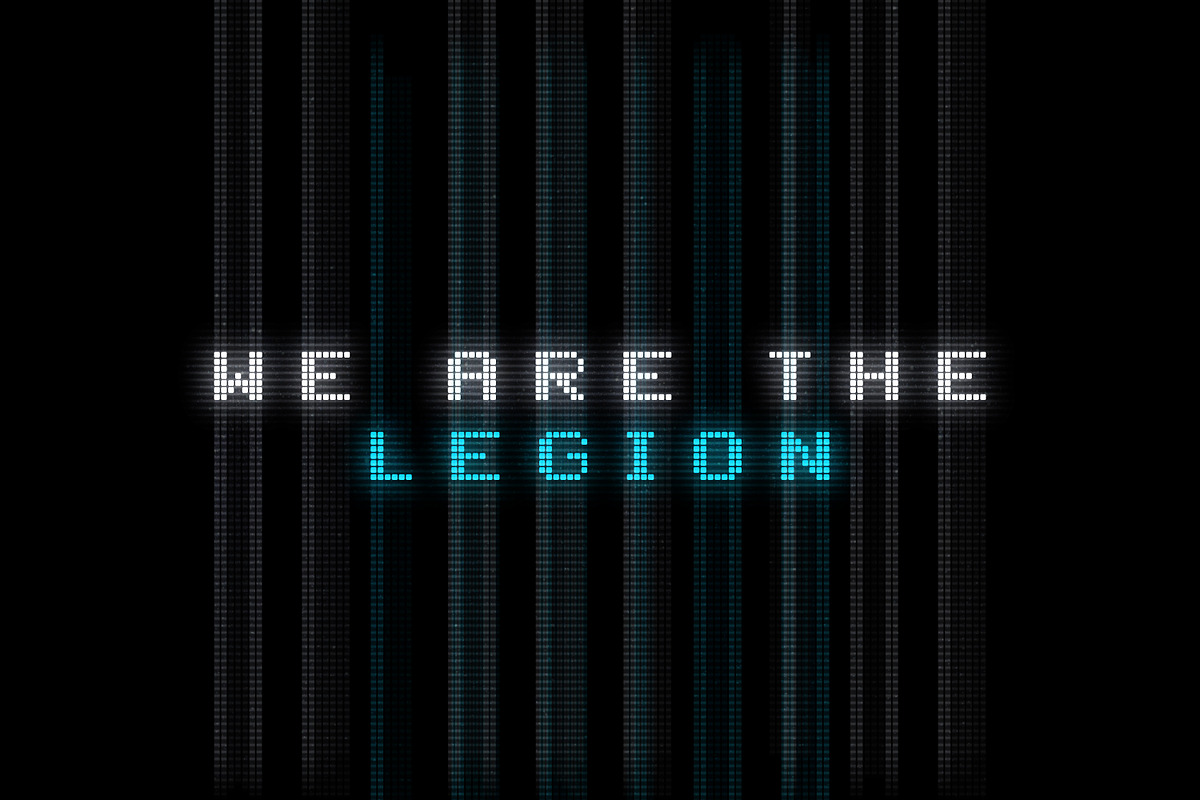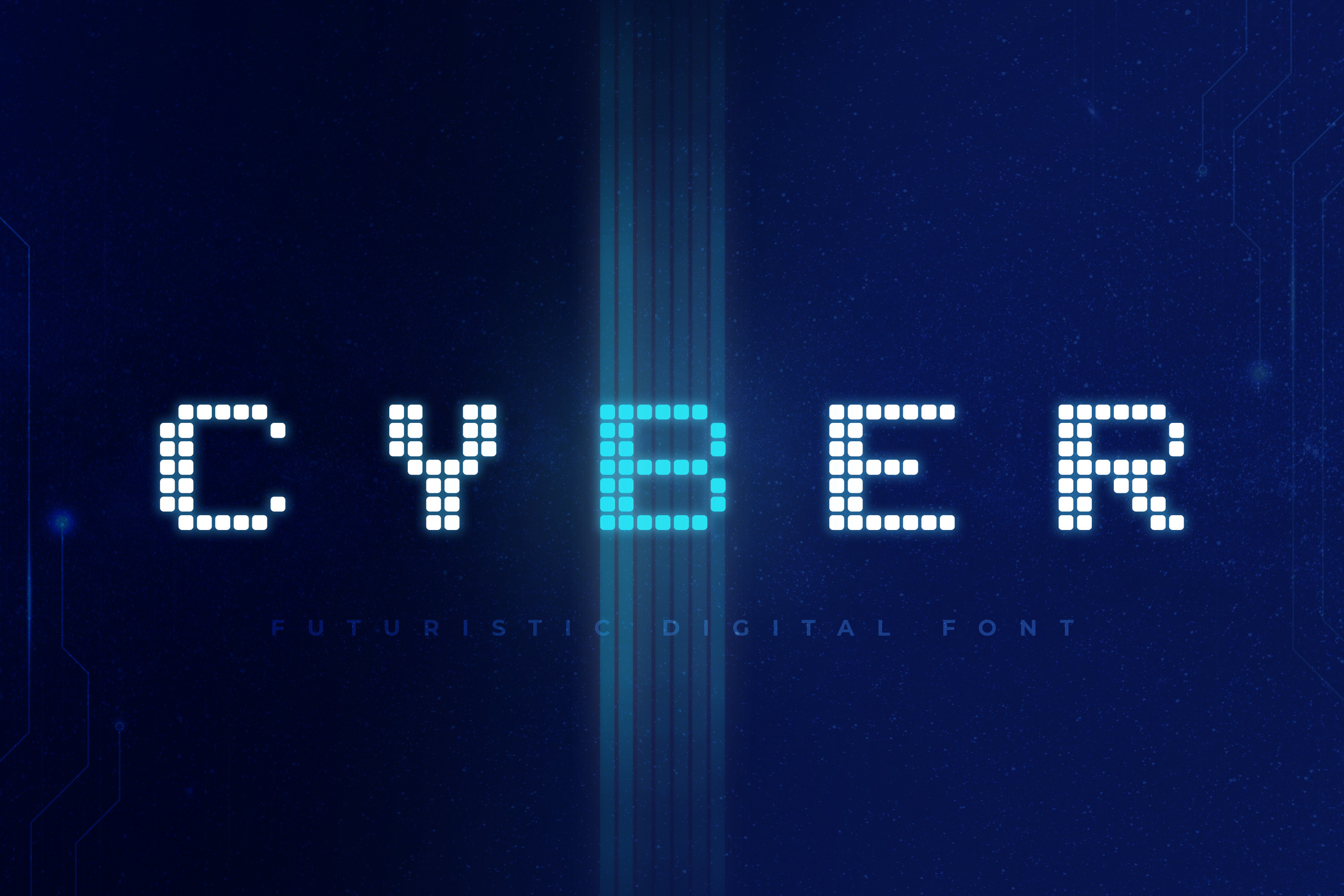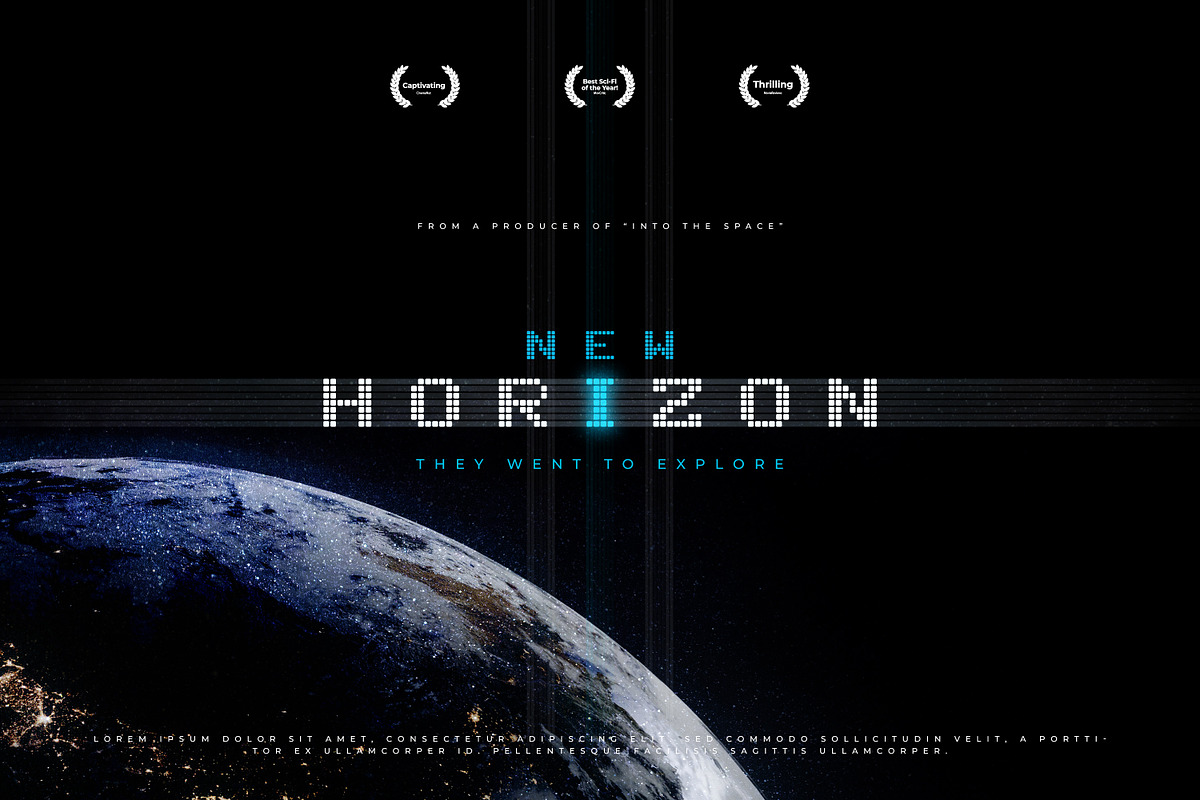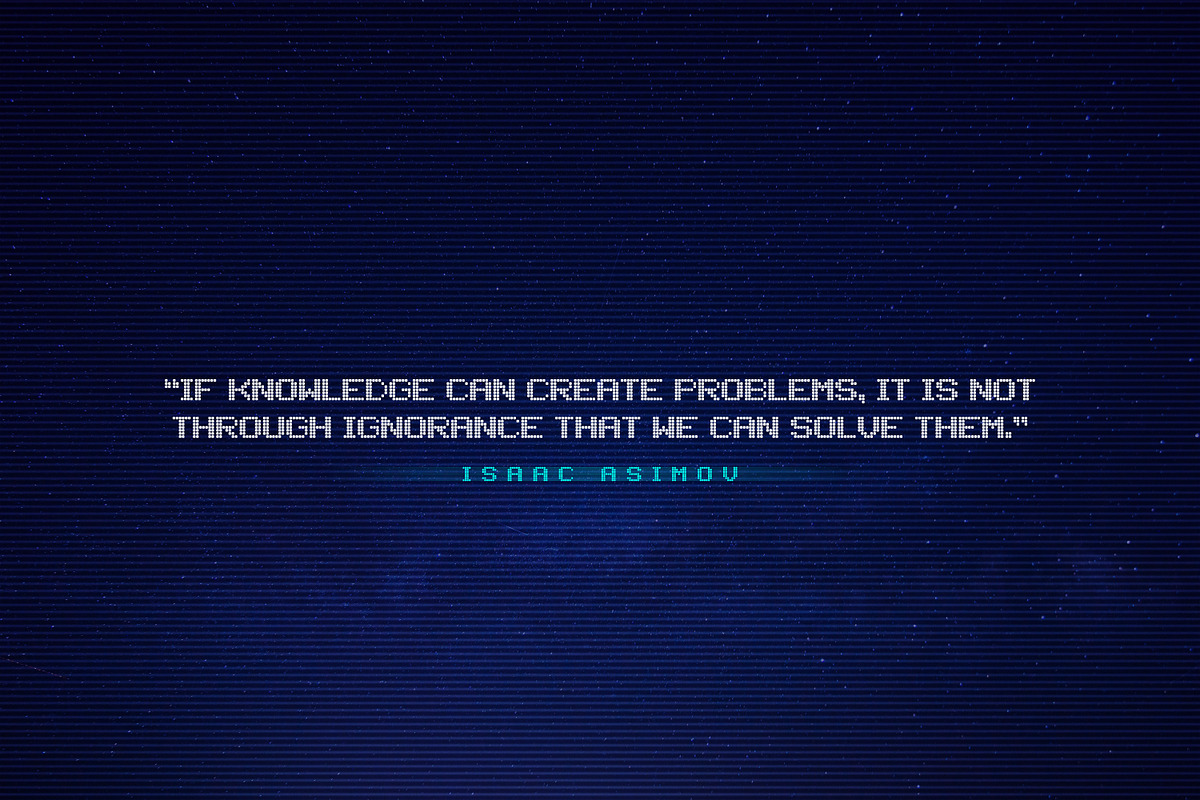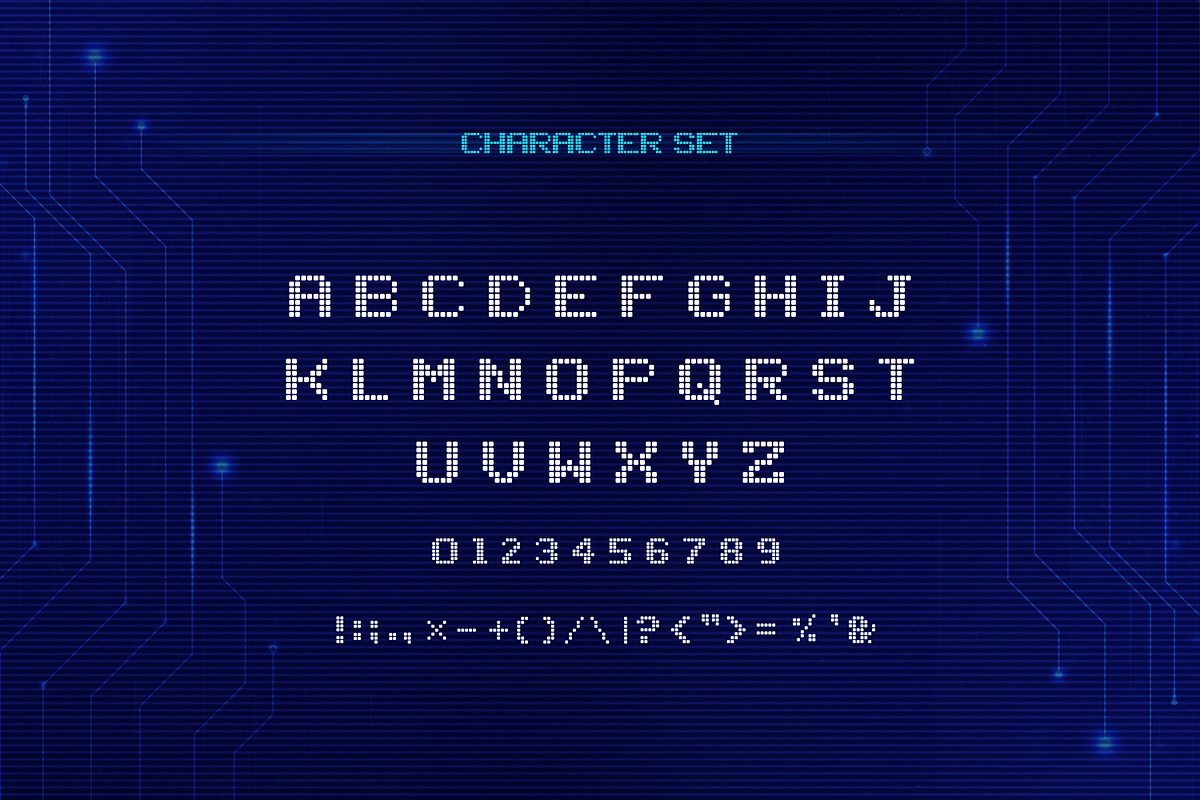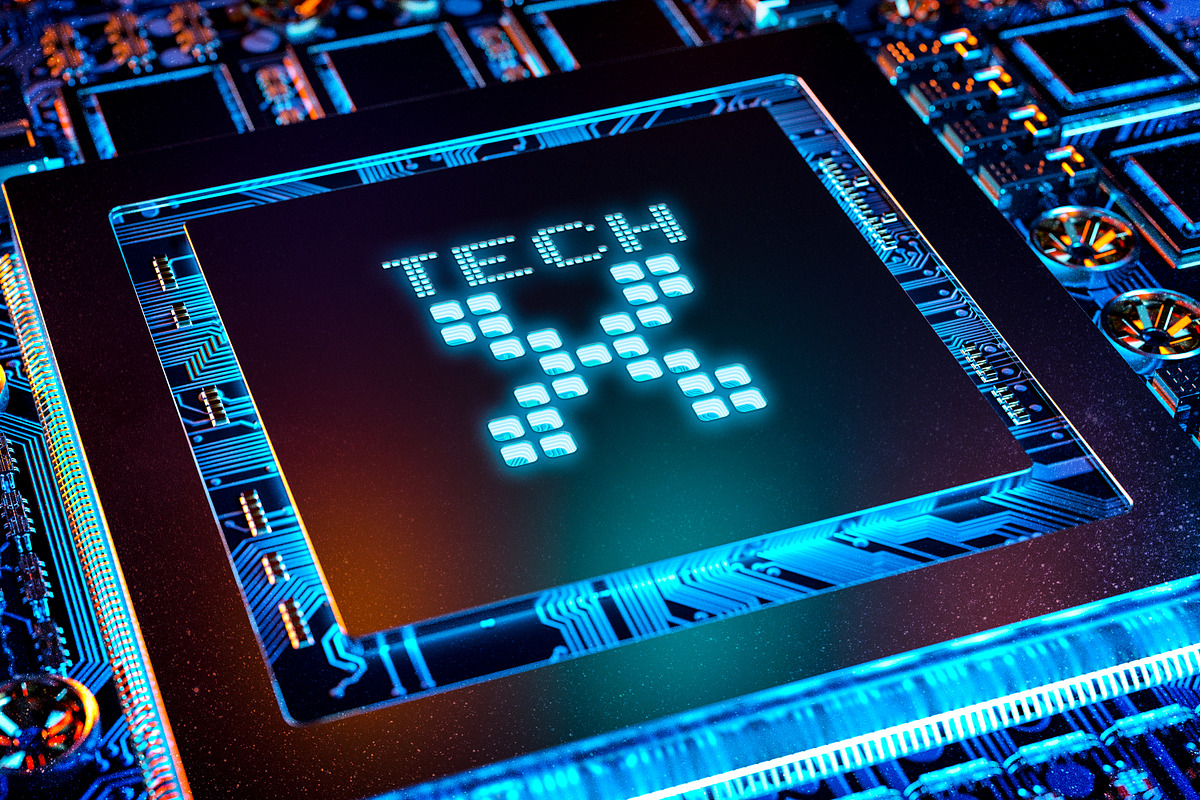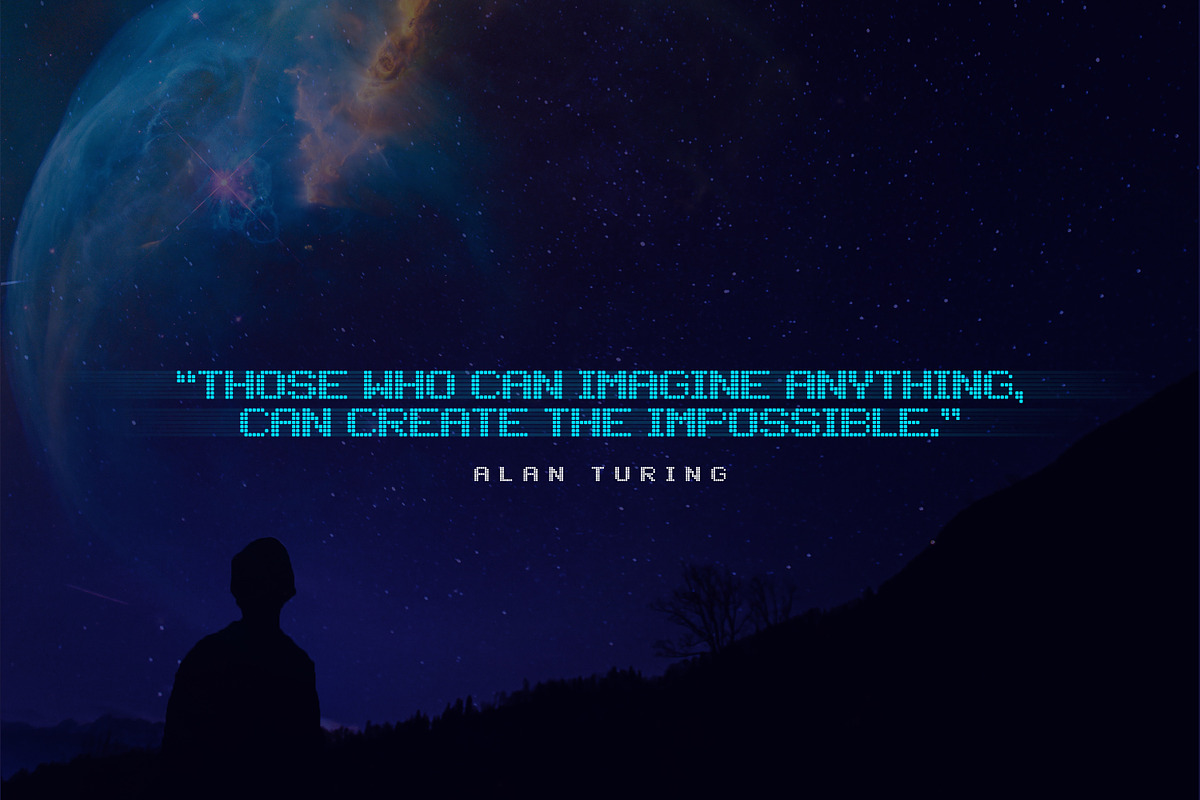
Cyber - Technology Font
Introducing Cyber - a digital technology font. Inspired by the pixelated designs of early digital displays, Cyber brings a unique blend of nostalgia and modernism to your creative projects.
Perfect for technology, sci-fi, science, and all kinds of futuristic projects. Create science fiction posters & flyers, website headers, high-tech logos and so much more!